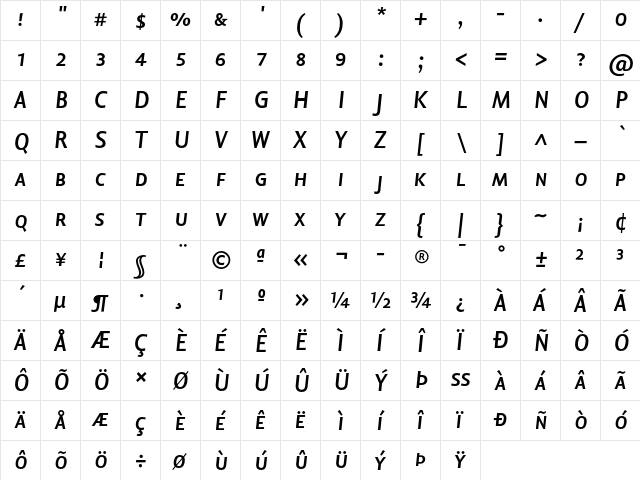
Lisboa Sans SC Bold Italic
Design Context for Lisboa Sans SC Typeface
Lisboa Sans SC is a composed and adaptable typeface that performs quietly and consistently across a wide range of design contexts. Its italic angle brings a sense of urgency and motion to the letterforms. The heavy weight commands attention and anchors typographic hierarchies.
Pro Tip: Try Lisboa Sans SC for annotation and caption copy alongside an upright companion — the contrast in angle creates a dynamic but ordered typographic system.